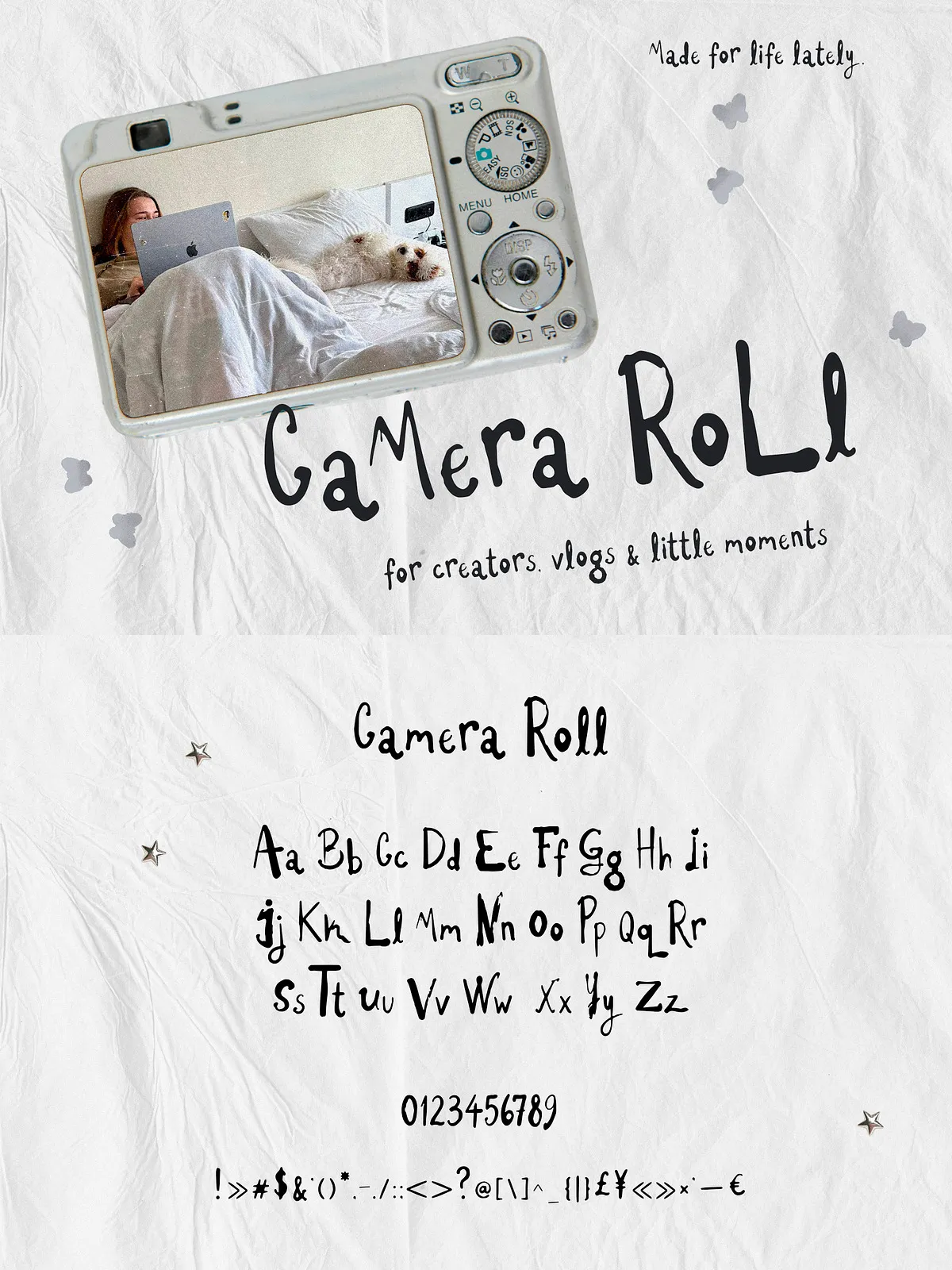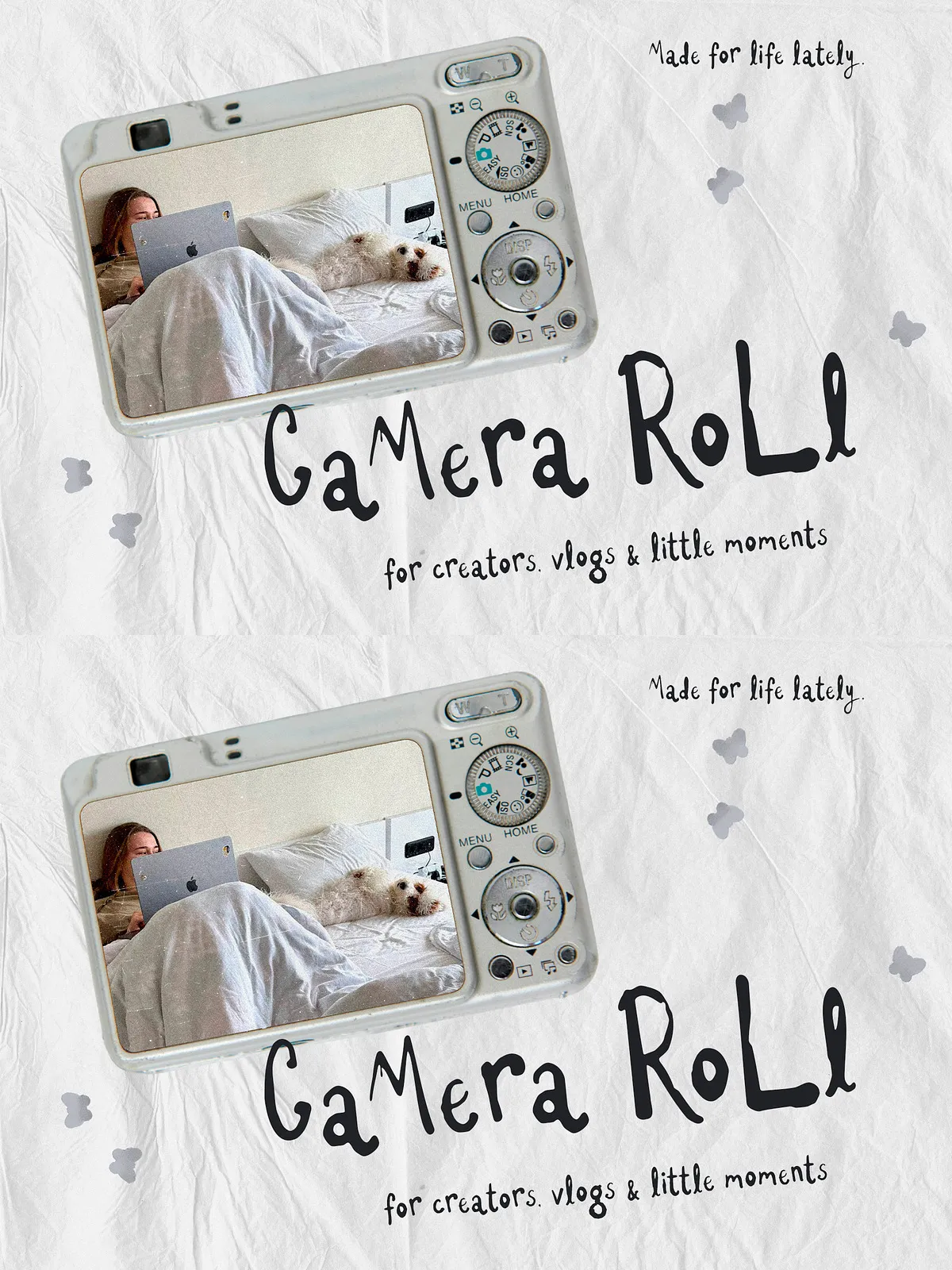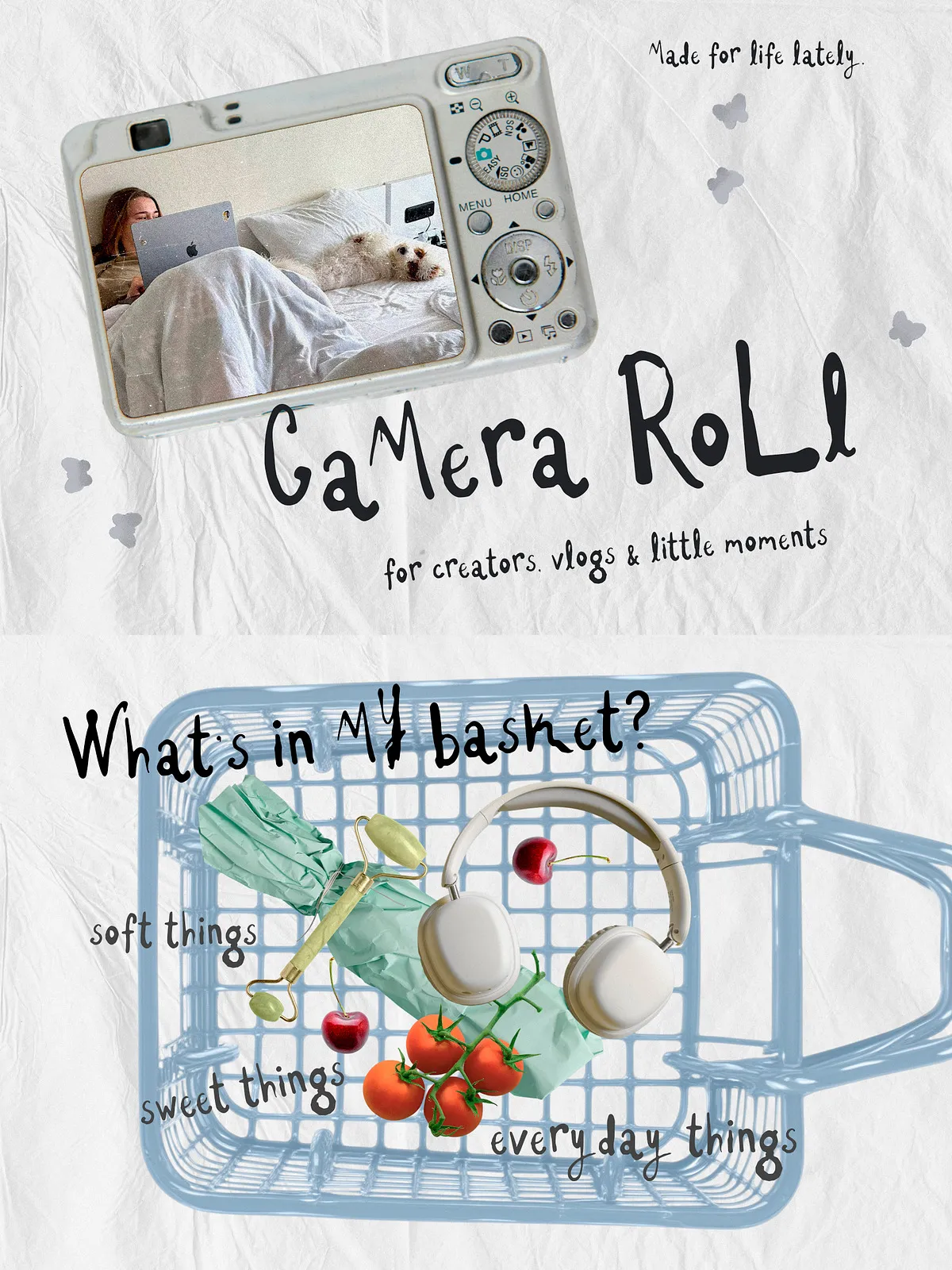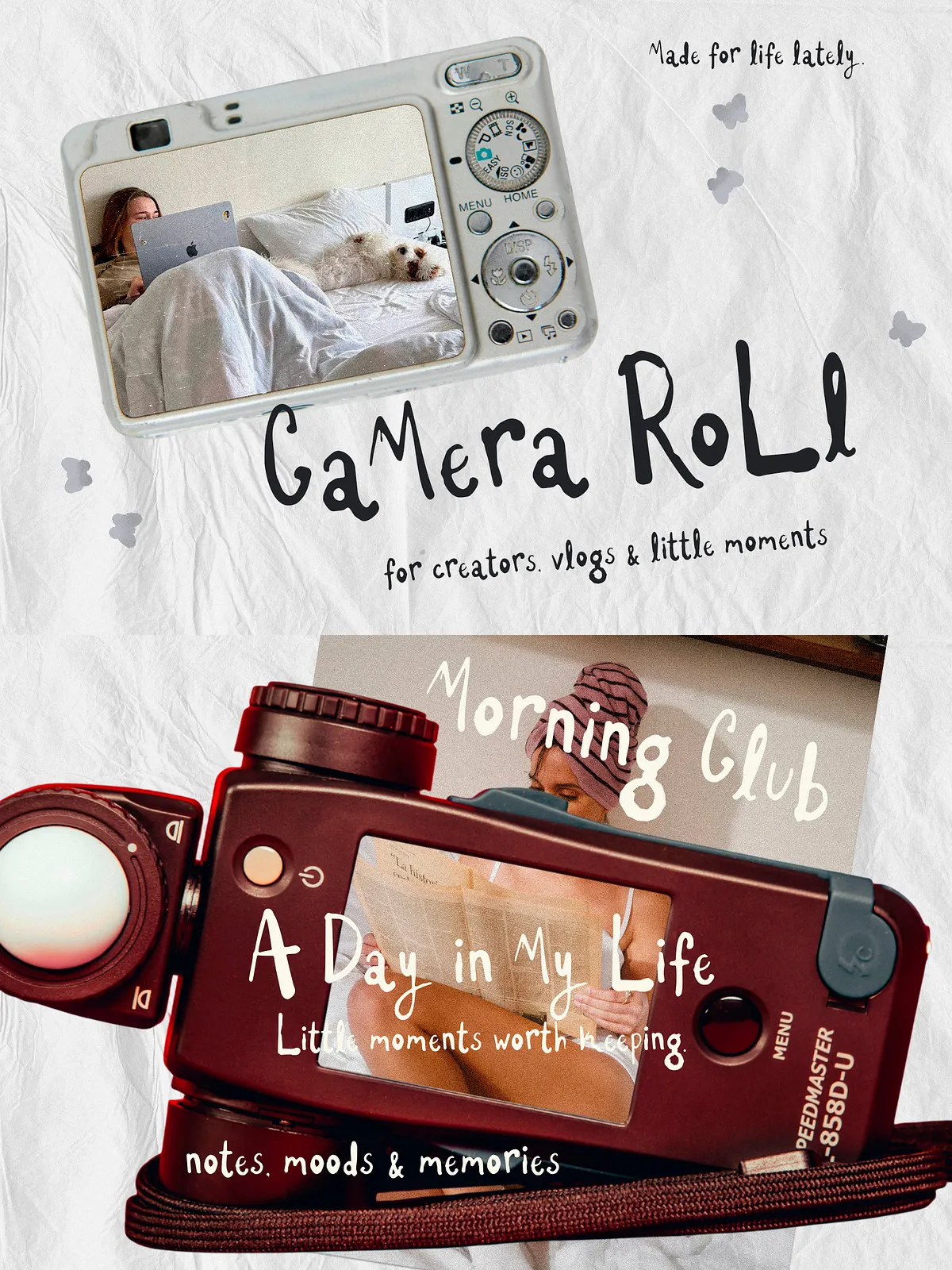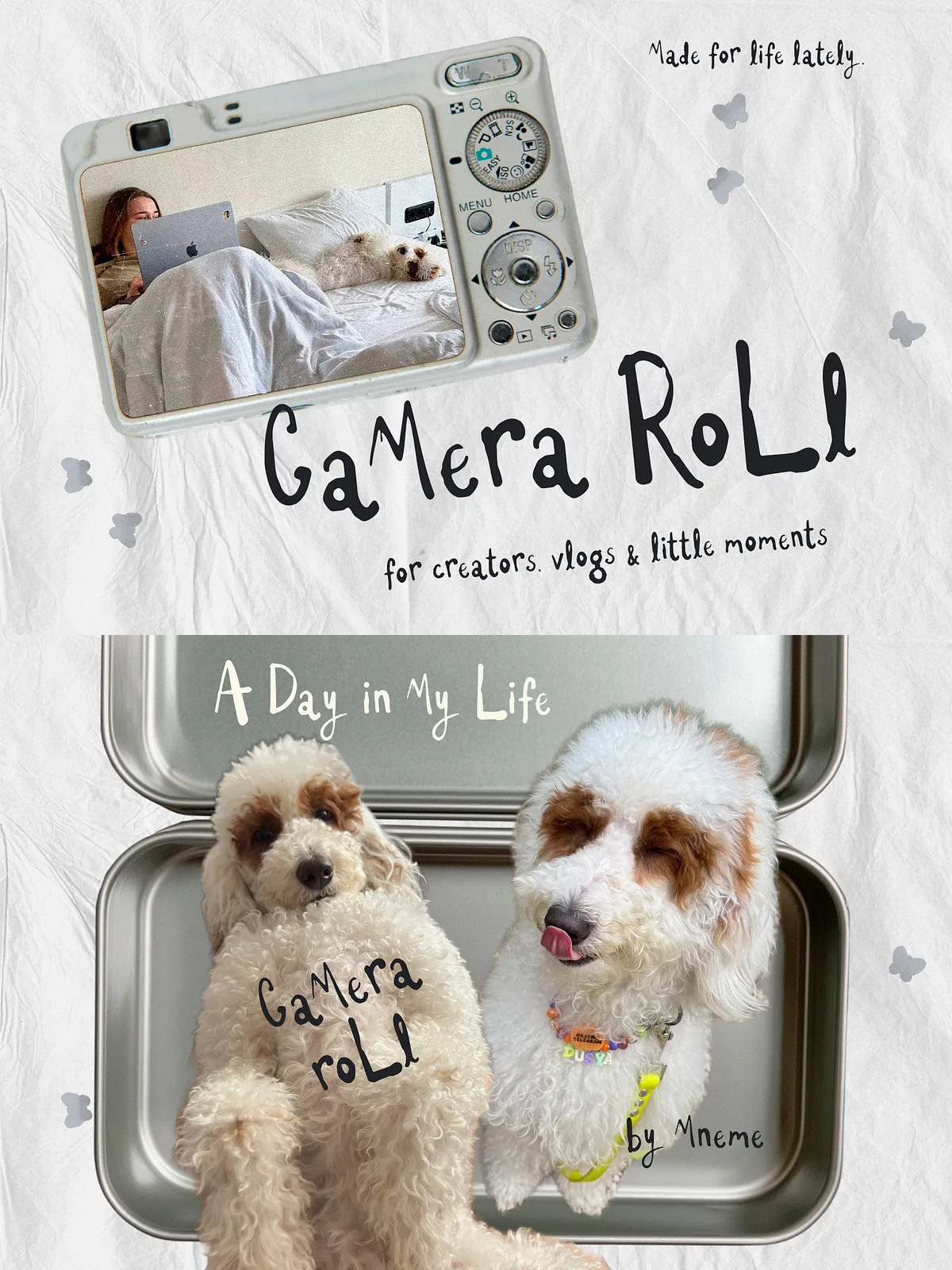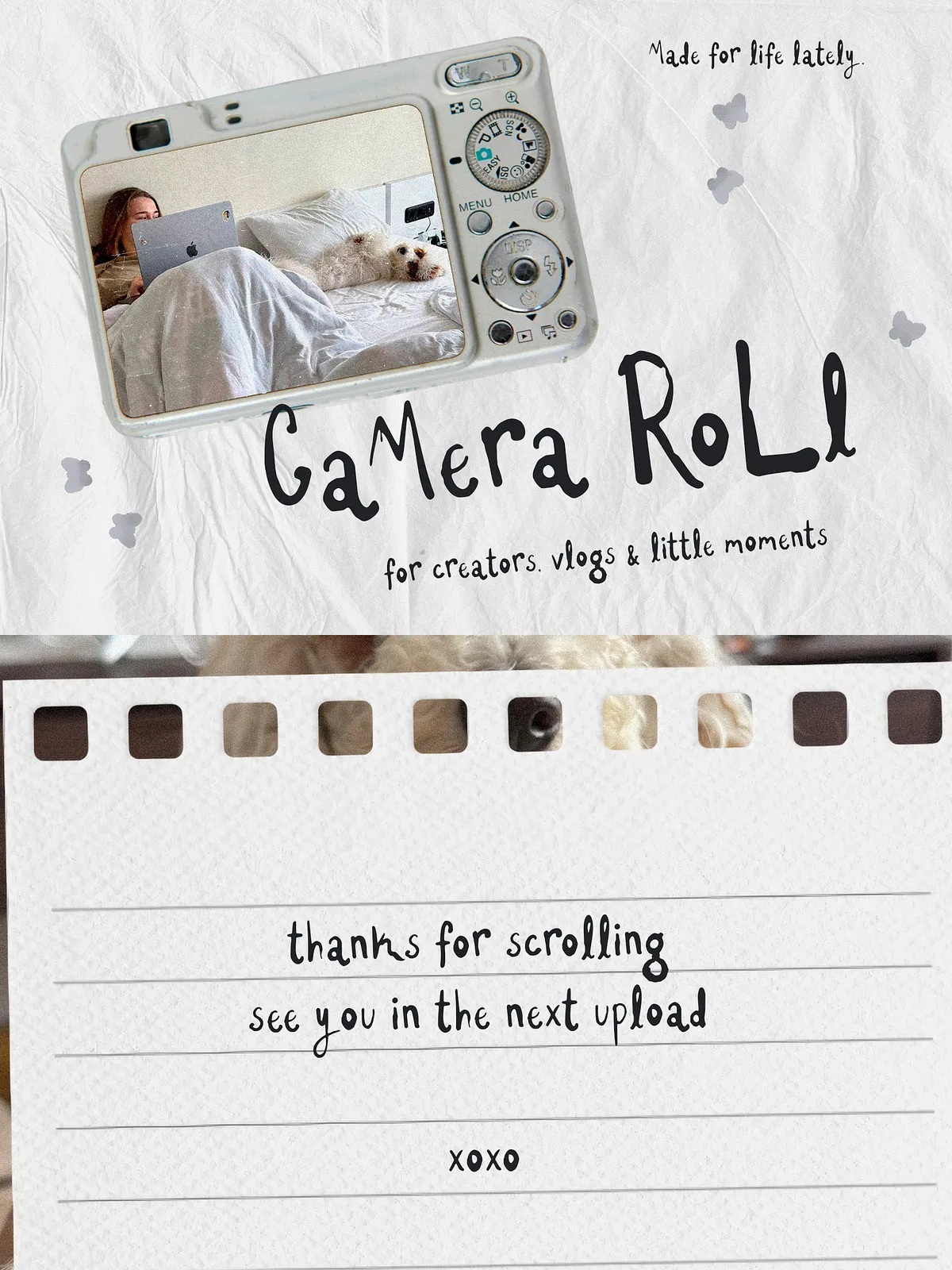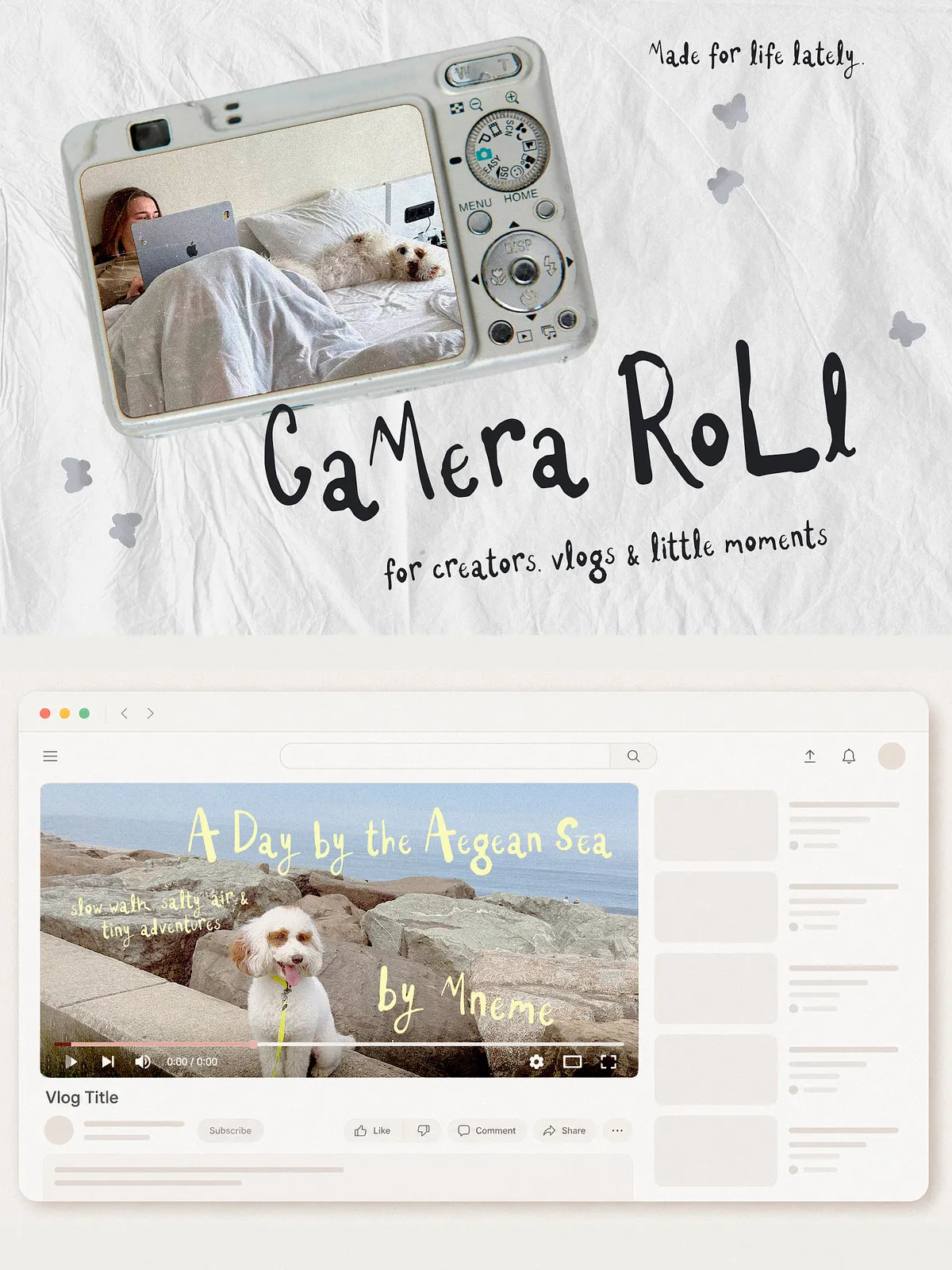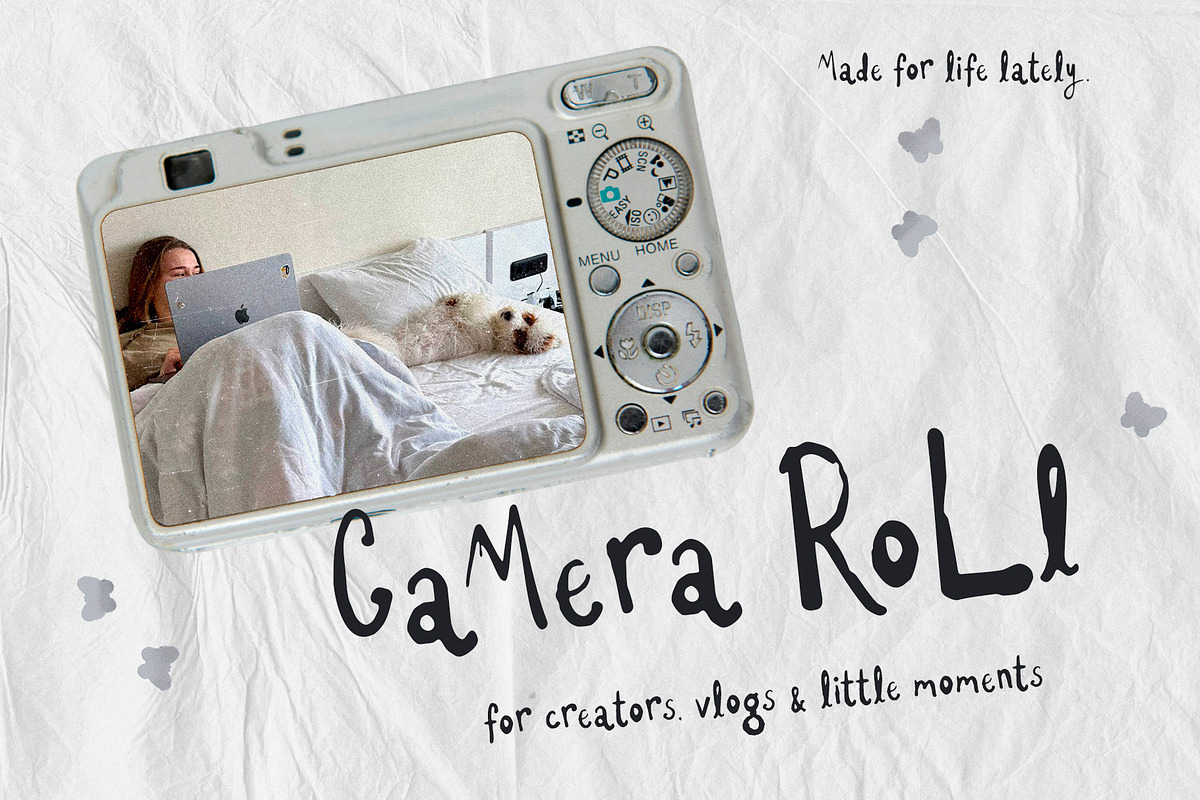
Camera Roll Casual Font
Camera Roll is a playful handwritten display font inspired by cozy vlogs, lifestyle creators, digital journals, and everyday moments captured on camera.
With its relaxed handwritten feel and slightly imperfect letterforms, Camera Roll brings warmth and personality to titles, thumbnails, branding, packaging, journals, social media graphics, stickers, scrapbooks, and creative projects.
Perfect for creators looking for an authentic handwritten style that feels casual, modern, and approachable.
Perfect for:
• YouTube thumbnails
• Vlog titles
• Lifestyle branding
• Social media graphics
• Journals & planners
• Scrapbooking
• Stickers
• Packaging
• Café branding
• Creative Market products
• Kids products
• Editorial headlines